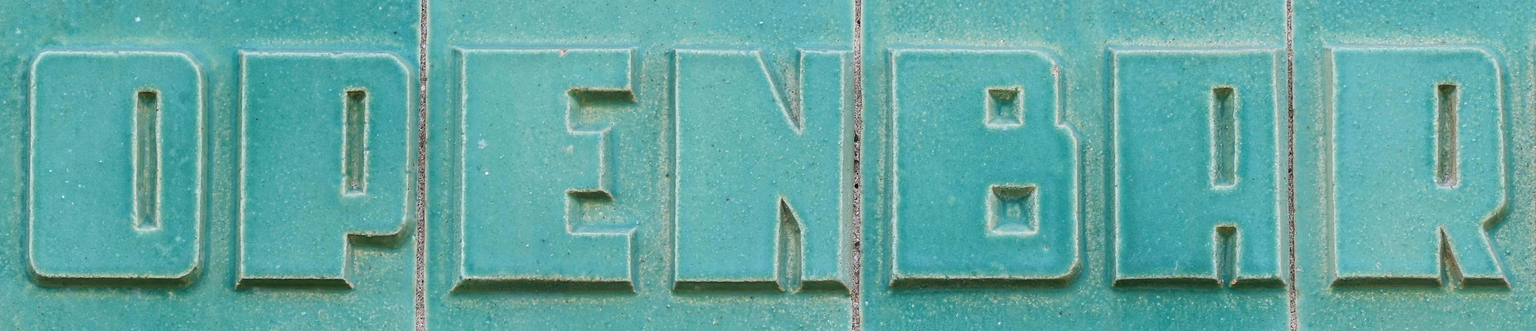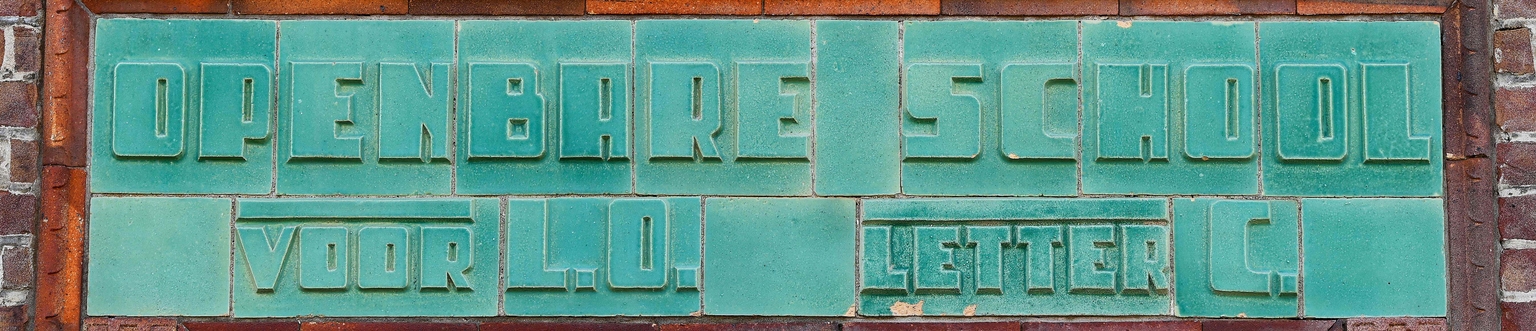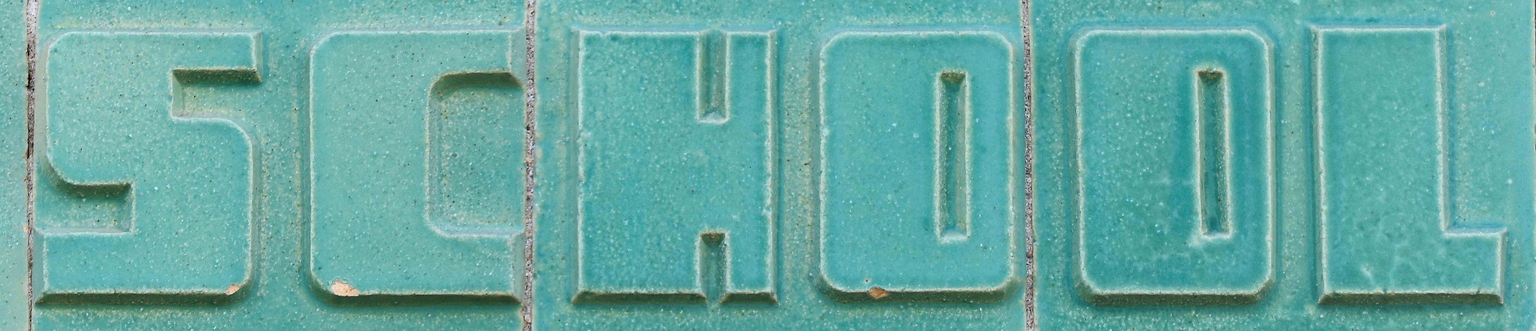
Openbaar
Openbaar is a distinctive display typeface by Paula Mastrangelo, inspired by the modular lettering found on the facade of the Public Elementary School Professor Casimir in Voorburg, Netherlands. Located above the side entrance on the Plaats van Middendorp street, these fat, geometric letters reflect the spirit of early 20th-century Dutch architecture and were likely designed by architect W. van der Sluis, though no official attribution survives.
With Openbaar, Mastrangelo has carefully reinterpreted the original inscription, preserving its rhythmic construction and unique modularity while expanding it into a full alphabet for contemporary use. The result is a typeface that feels both architectural and expressive—ideal for editorial headlines, signage, packaging and branding projects seeking historical depth with a modern edge.
Openbaar is more than a revival; it’s a tribute to an era when typography and architecture worked hand in hand to shape public space. Now available through ReType, it brings a hidden gem of Dutch design into the digital age.